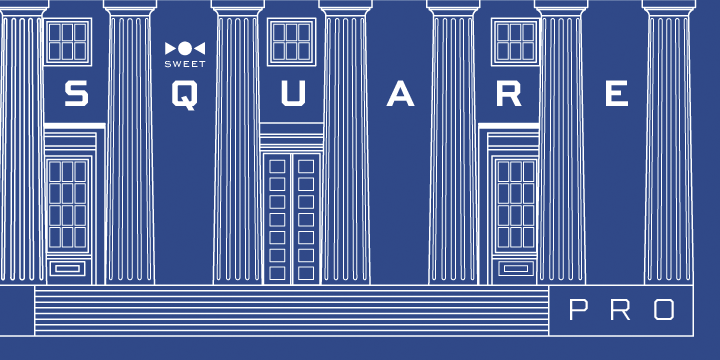
Sweet Square Pro Family (18 fonts)
Sweet® Square is based on antique engraver's lettering templates called "masterplates." Professional stationers use a pantograph to manually transfer letters from these masterplates to a piece of copper or steel that is then etched to serve as a plate or die. This demanding technique is rare today given that most engravers now use a photographic process to make plates, where just about any font will do. But the lettering styles engravers popularized during the first half of the twentieth century remain both familiar and appealing.
Referencing various masterplates, Mark van Bronkhorst has drawn Sweet Square in nine weights. The sources offered just uppercase, small caps, and figures, yet similar, condensed examples had a lowercase, making it possible to interpret a full character set for Sweet Square. Italics were also added to give the family greater versatility.
Sweet Square gives new life to an uncommon class of typeface: an early twentieth-century commercial invention that brings a singular verve to modern design. Its unique style is as useful as it is novel.
Sweet Fonts Collection is a growing range of engraving lettering styles from the 20th Century. With the advent of the engraving machine (a pantograph device) around 1900, commercial engraving moved from the use of hand-cut plates to the use of masterplates (lettering patterns). Lettering was traced from the masterplate using the engraving machine, letter by letter, onto a coated steel plate, that would then be etched in a chemical bath. The resulting plate was used to print engraved stationery with the raised print distinctive to the process. Many of these lettering styles were used for decades for commercial and social applications (letterheads, wedding invitations, etc.), but as they were merely traced alphabets, were not “fonts”. Many remain unavailable in digital form. Over time, a number of the most popular styles were adapted to phototype, which sped up the process of plating for engraving, avoiding the need to trace each letter by hand with the engraving machine. Later, when type went digital, these phototype fonts were revived as digital fonts. As a result, the styles offered by engravers narrowed over time, as has the range of engraving styles revived in digital form. The Sweet Fonts Collection represents an effort to locate and revive obscure, engraved lettering styles that are at risk of fading away, as well as to re-interpret familiar designs for broader application. Sweet Fonts Collection. Published by MVB Fonts, San Francisco Bay Area, California. TEL: 510 525-4288